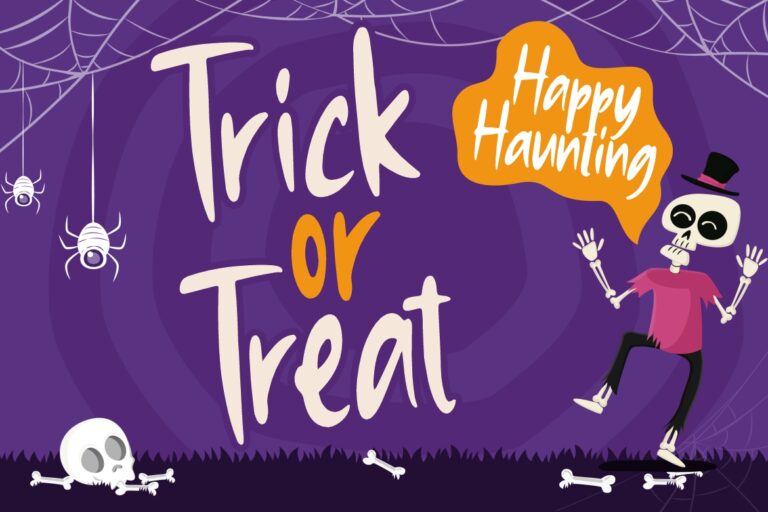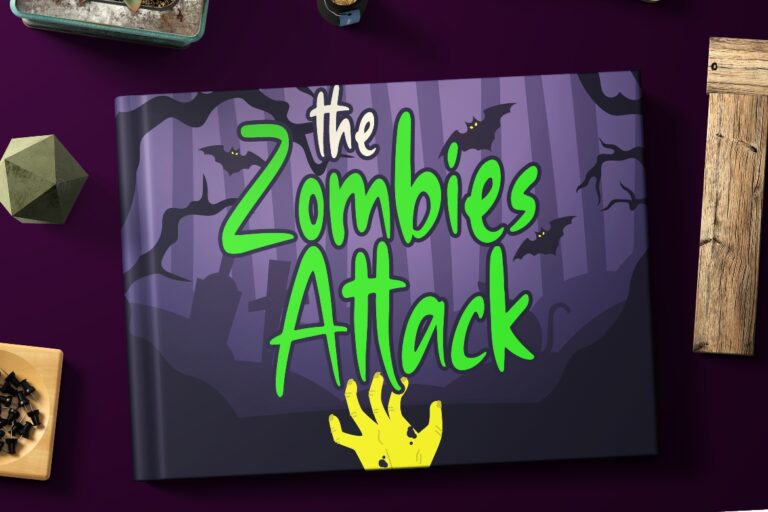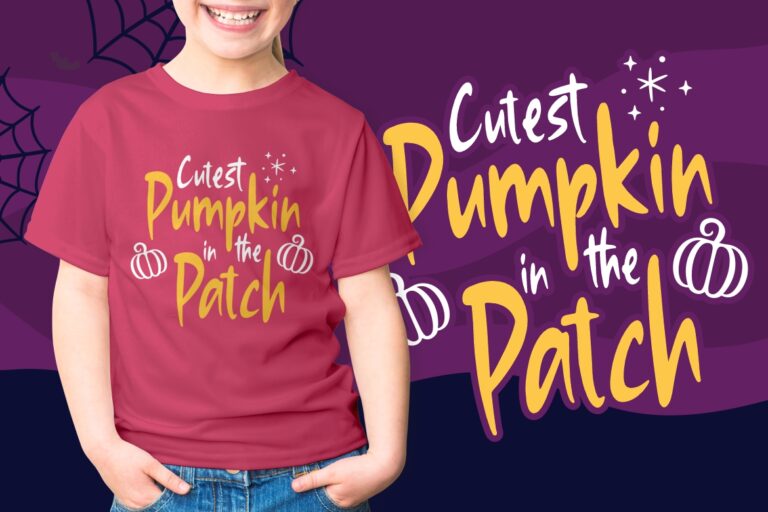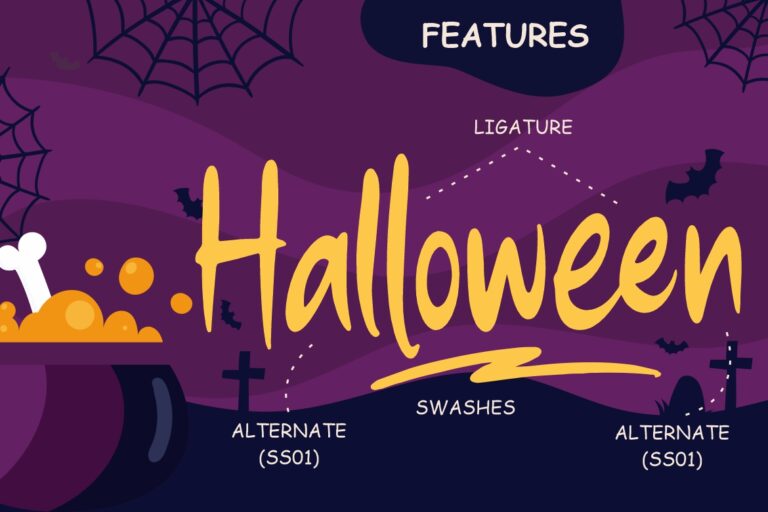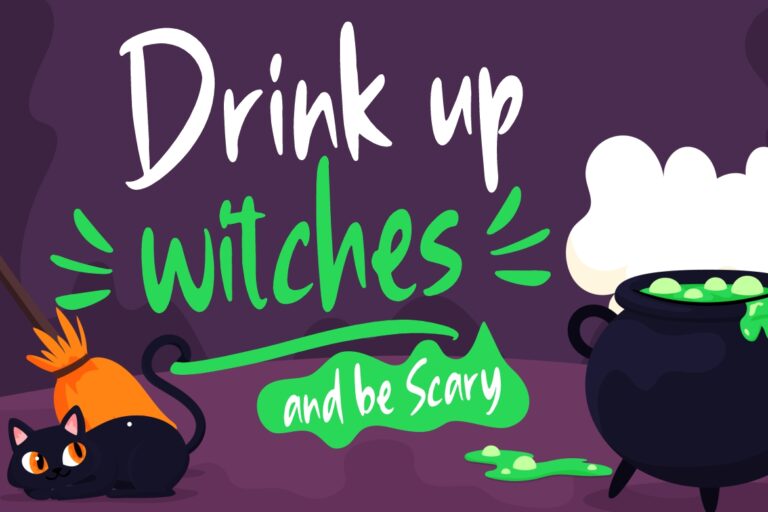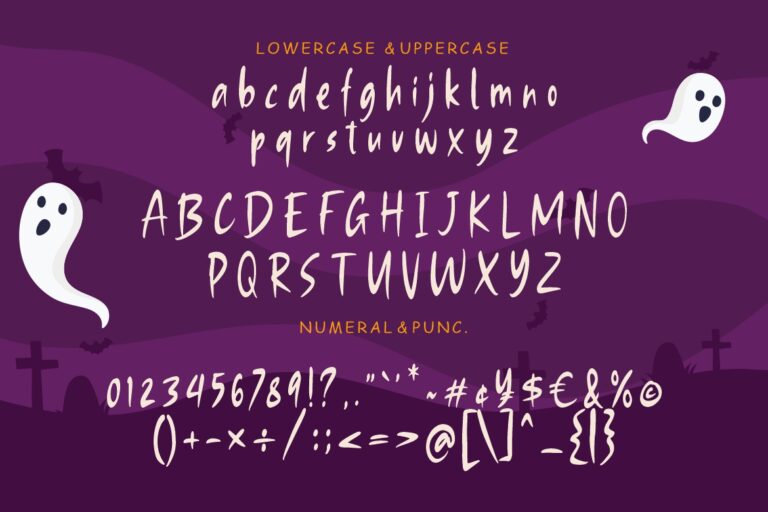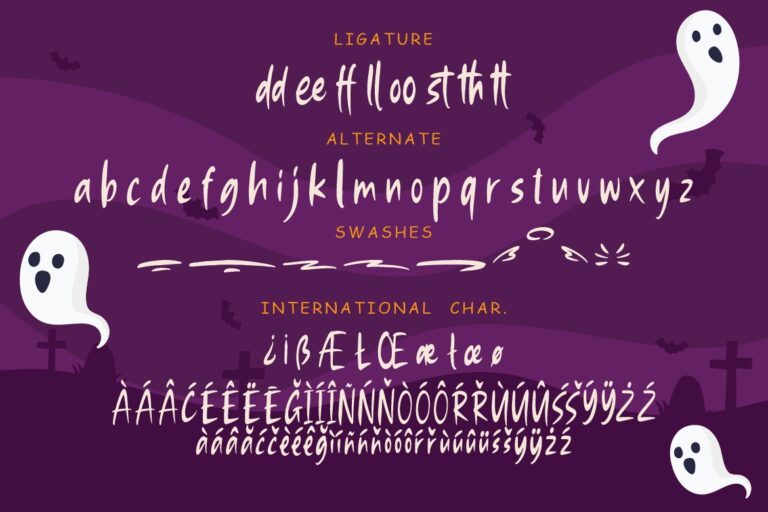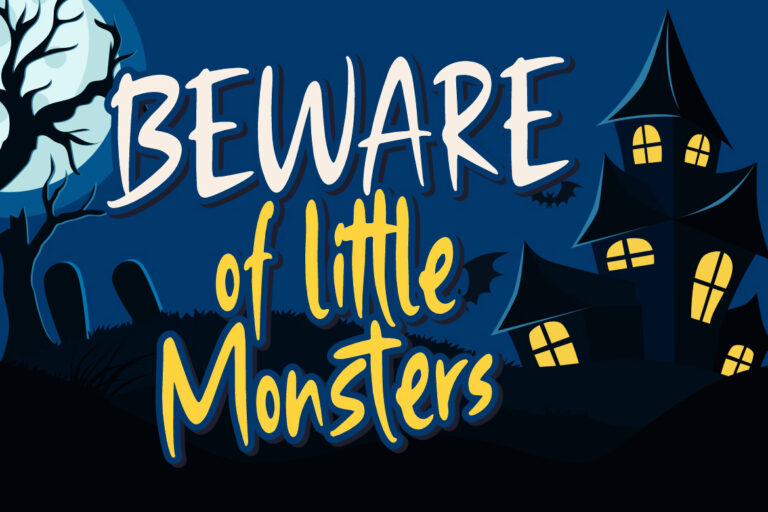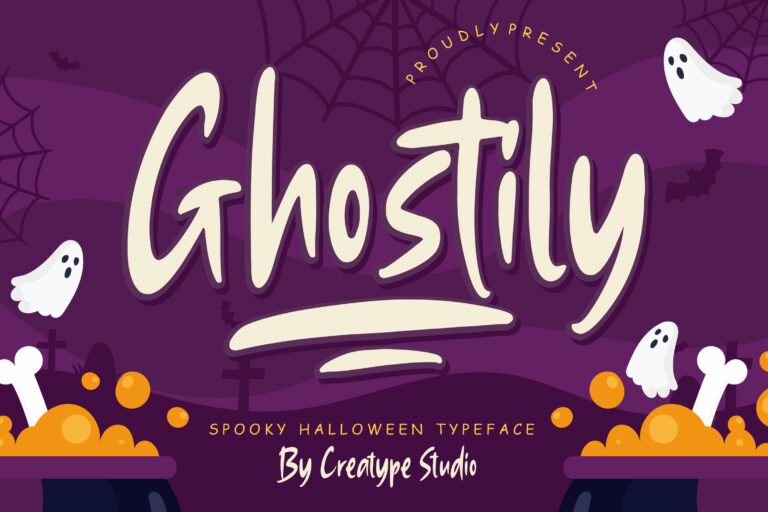
Ghostily a spooky fun font which perfect for halloween event and your fun project.
Ghostily would perfect for photography, watermark, social media posts, advertisements, logos & branding, invitation, product designs, label, stationery, wedding designs, product packaging, special events or anything that need handwriting taste.
- Ligatur & Alternate
Ghostily Spooky Halloween Typeface